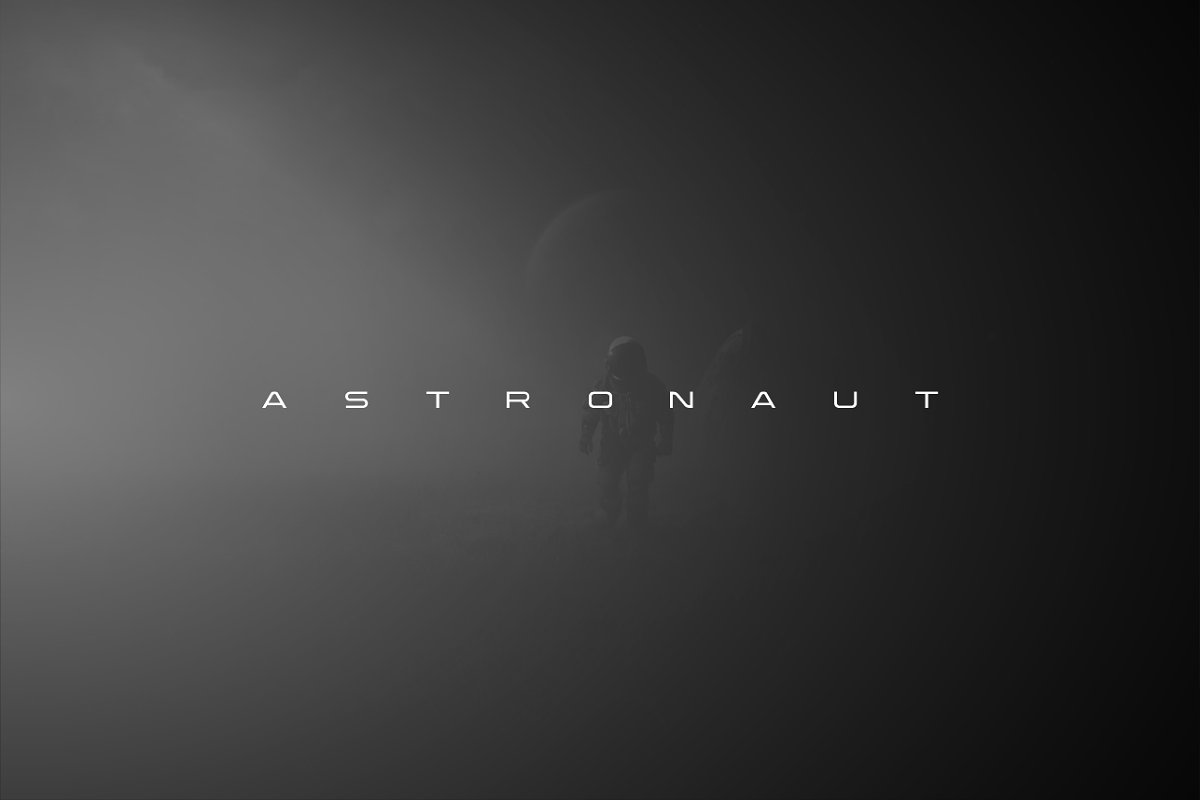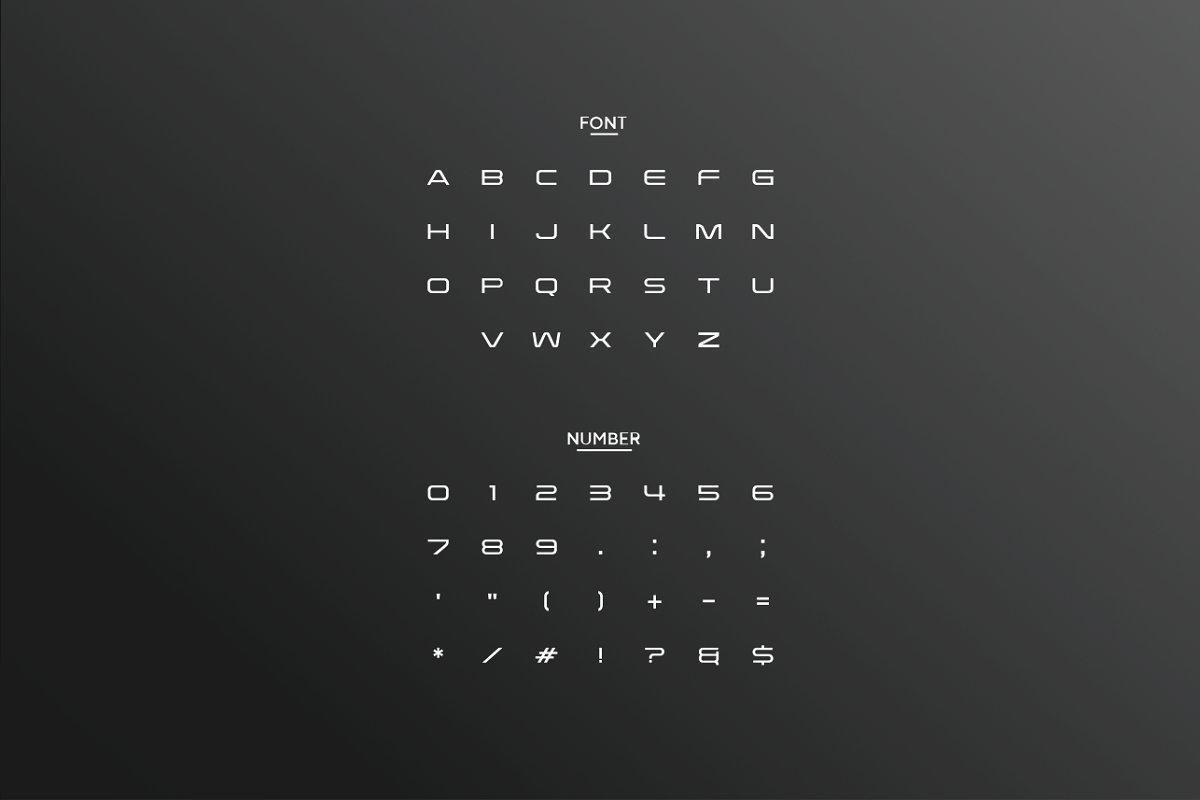
About the Rodiopen Font
Rodiopen is a futuristic font inspired by science fiction movies and books. Minimalistic is the main style for this typeface also outline style give more modern and elegant look. This font is suitable for various purpose such as movies, posters, logos, labels, webfont and any modern purposes. Many alternate character include for this font, check out the note file for guide how to use it.